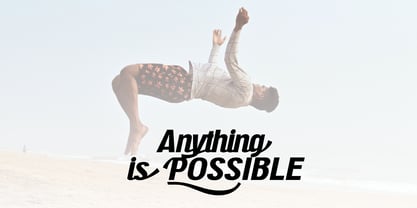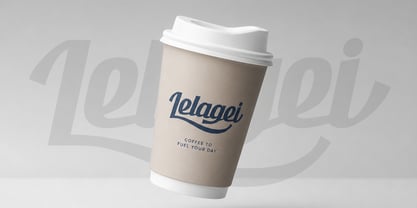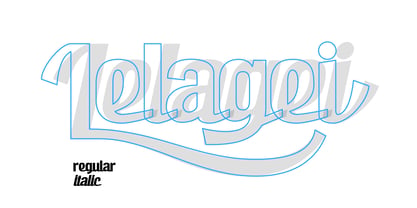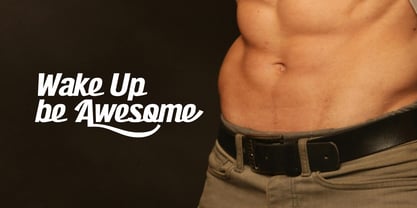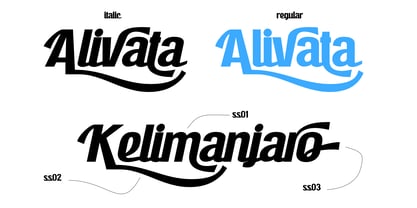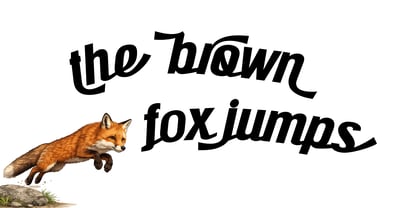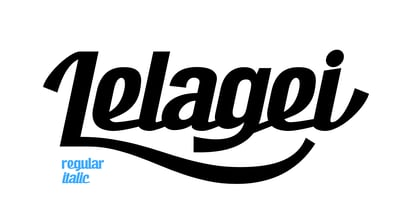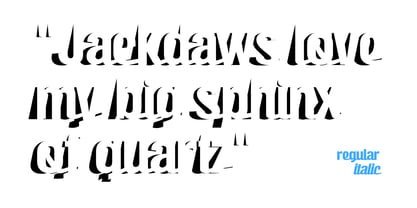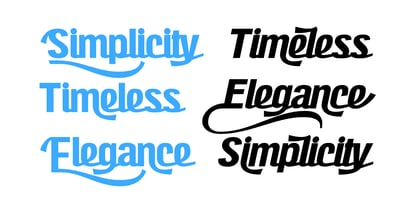
Lelagei
by Gatype
The Lelagei Font Family was designed by khaidir and published by Gatype. Lelagei contains 2 styles and family package options. More about this family
Lelagei is a modern script font that blends smooth curves with a confident, flowing rhythm. Designed to deliver both elegance and personality, it works beautifully across branding, packaging, and editorial use.
With its natural movement and carefully crafted letterforms, Lelagei brings a warm, approachable feel while maintaining strong readability. Perfect for logos, headlines, and any design that needs a touch of charm without losing clarity.
Designers: khaidir
Foundry: Gatype